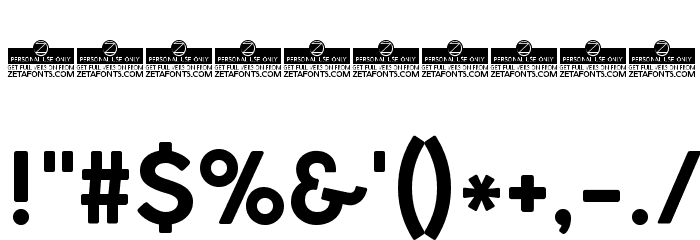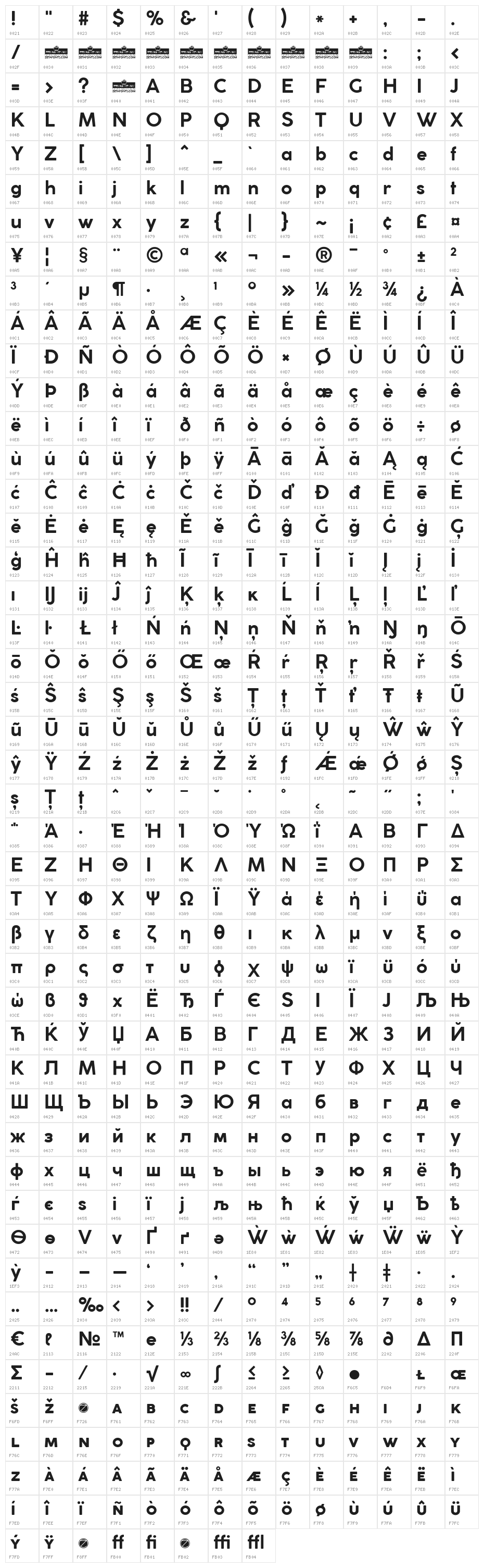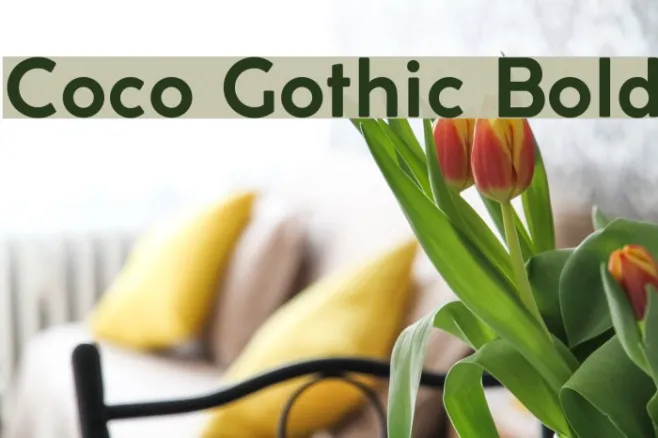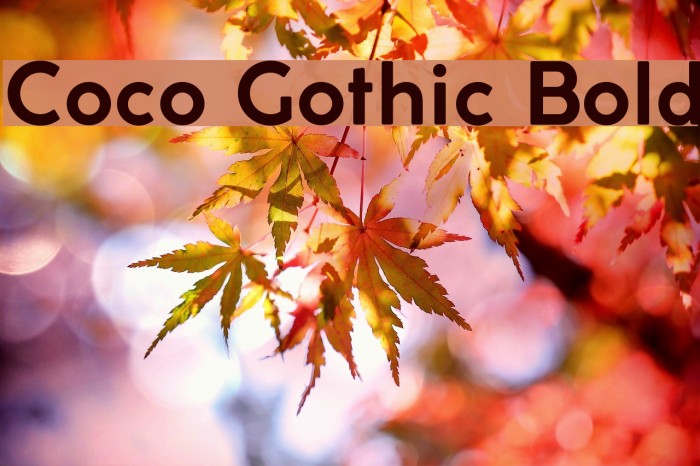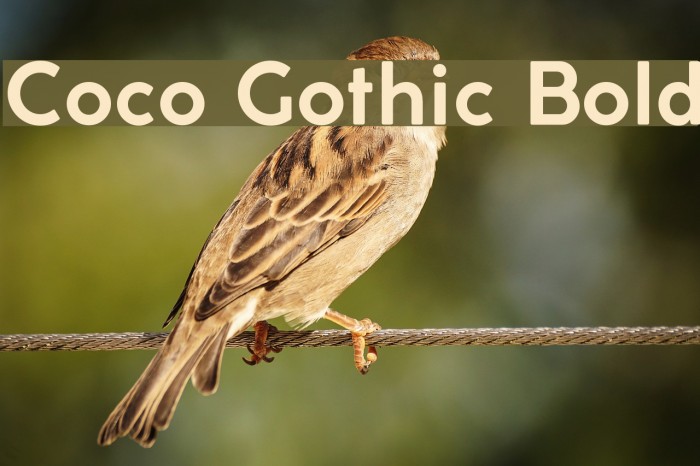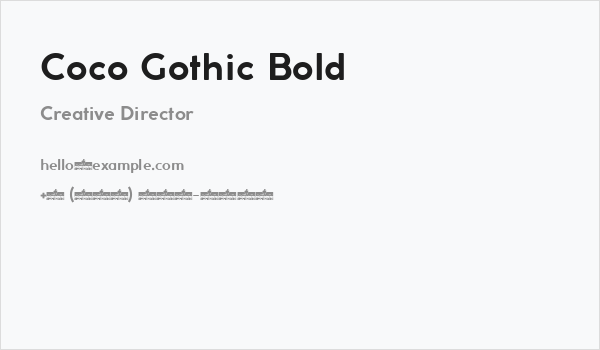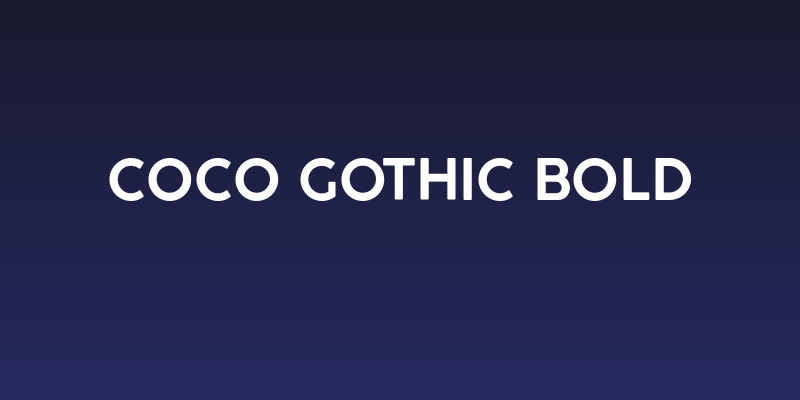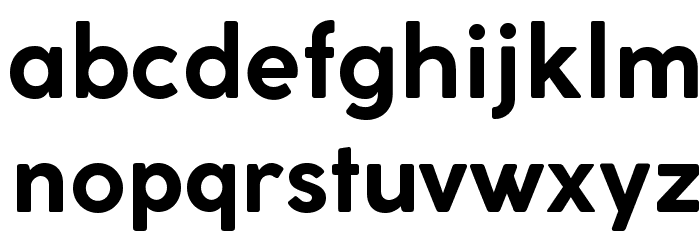
Coco Gothic Bold Font
Coco Gothic Bold Description
This font features a clean and modern sans-serif design with bold, uniform strokes that convey a sense of strength and clarity. The uppercase and lowercase letters are well-proportioned, with a consistent weight that enhances readability. The numerals and special characters maintain the same boldness, ensuring a cohesive look across all text elements. The font's geometric shapes and smooth curves give it a contemporary feel, making it versatile for various design applications.
| Proposed Projects | Ideal for branding, advertising, headlines, and digital media where a strong, modern aesthetic is desired. |